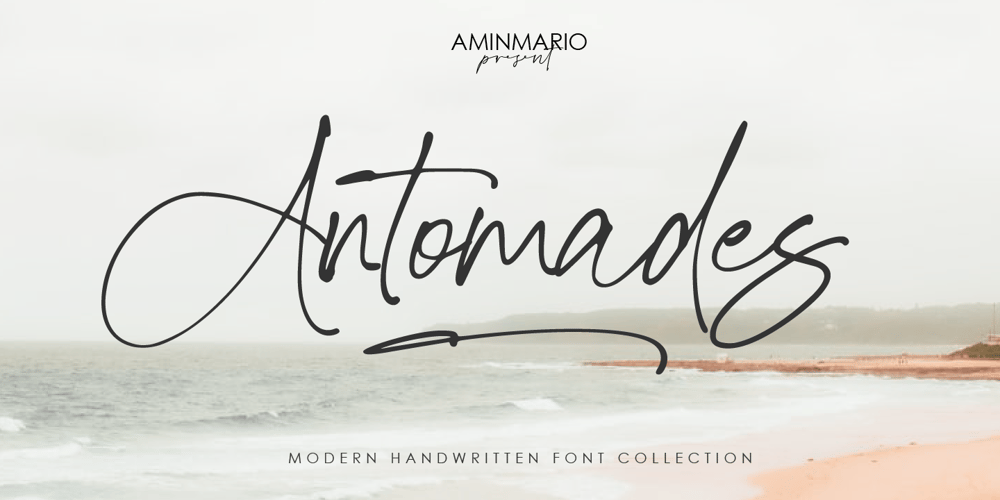
Antomades
Antomades font
Antomades Font Family was designed by Amin Maryono and published by Aminmario Studio. Antomades contains 2 styles and family package options. IntroducingAntomades font is a modern and elegant handwritten font with varying thickness and a charming gesture. This font was created to look as close to a natural handwritten script. Perfect for any awesome projects that need hand writing taste.Comes with regular and italic. With built in Opentype features, this script comes to life as if you were writing it yourself.Don’t hesitate if you have any questions. Thanks for checking out this font. I hope you enjoy it!AminMario